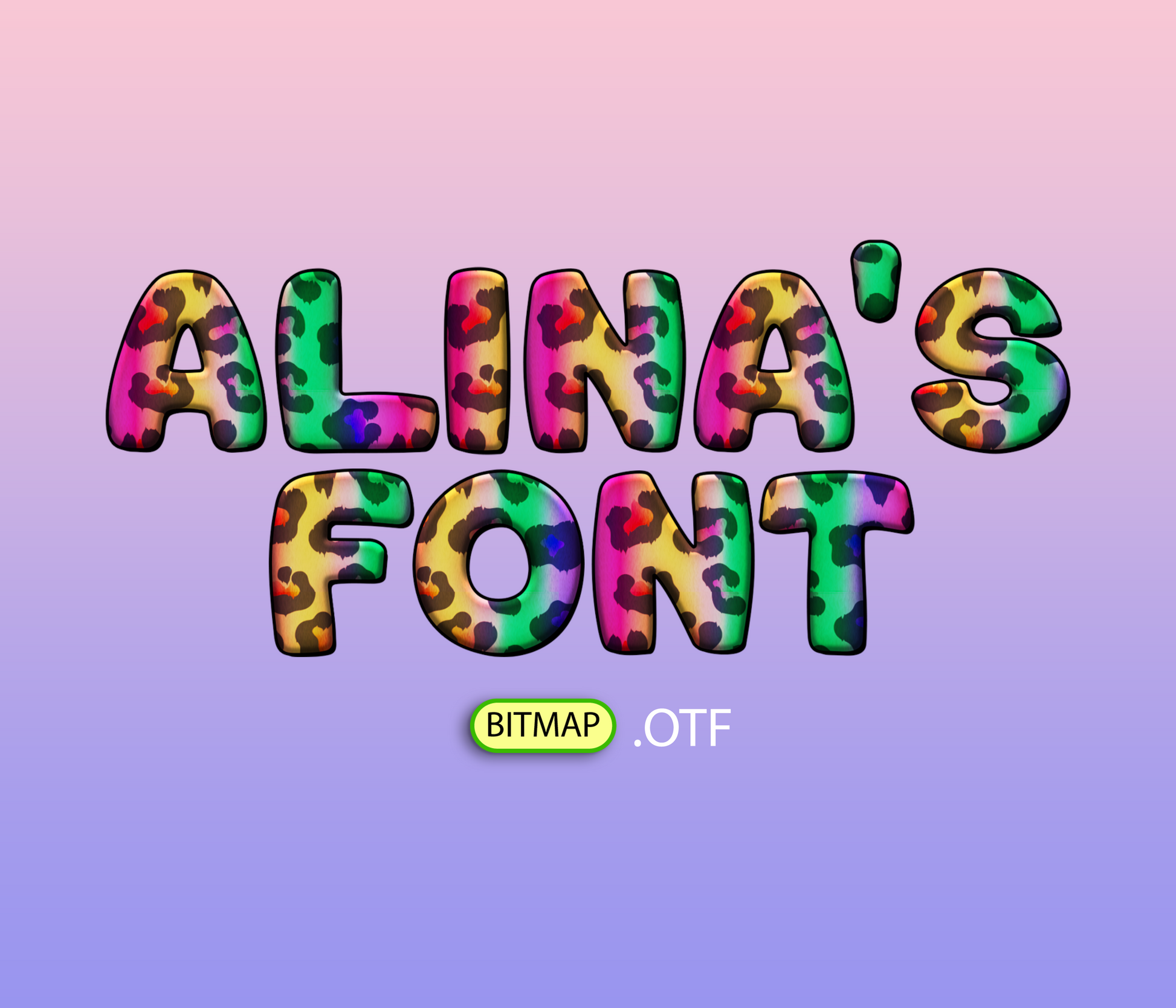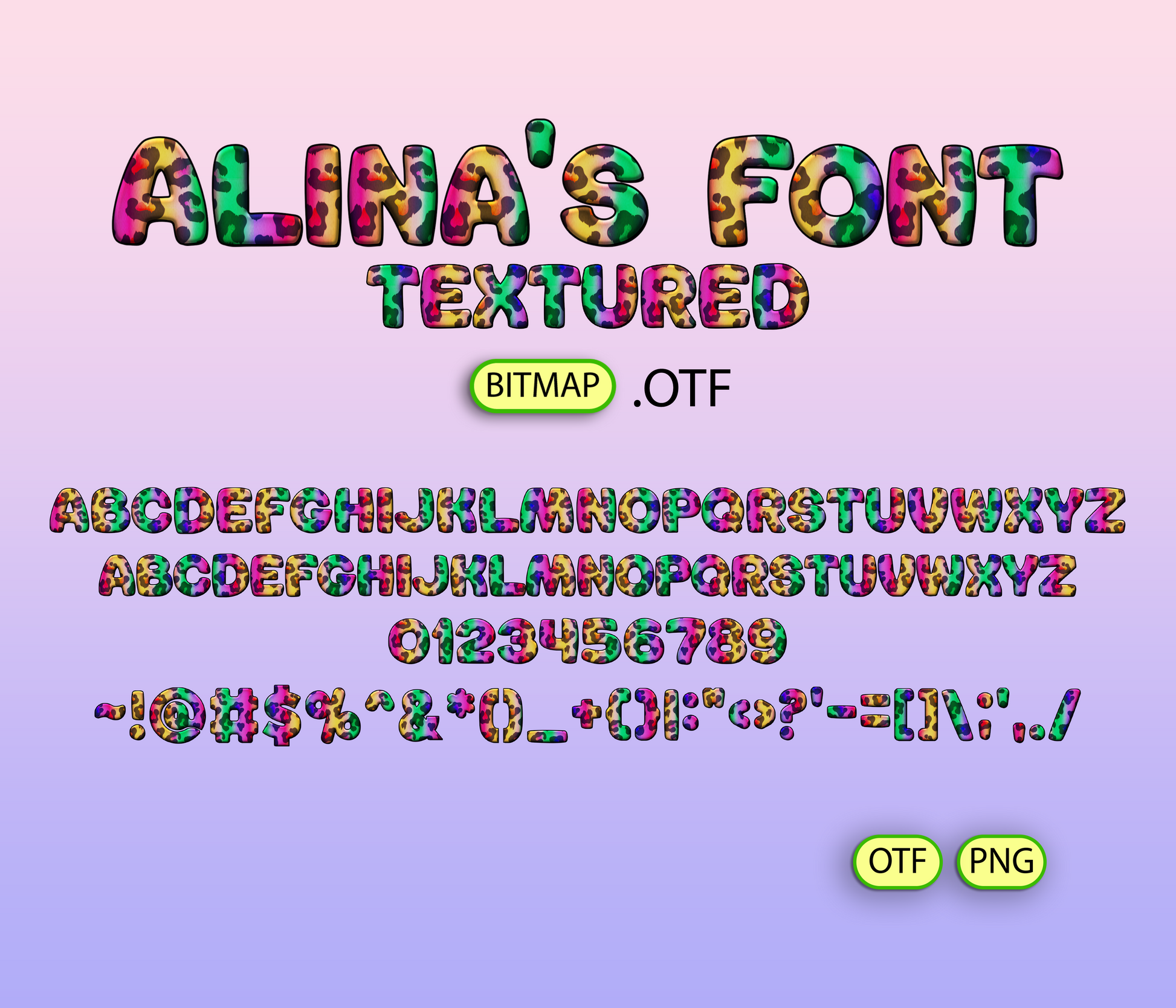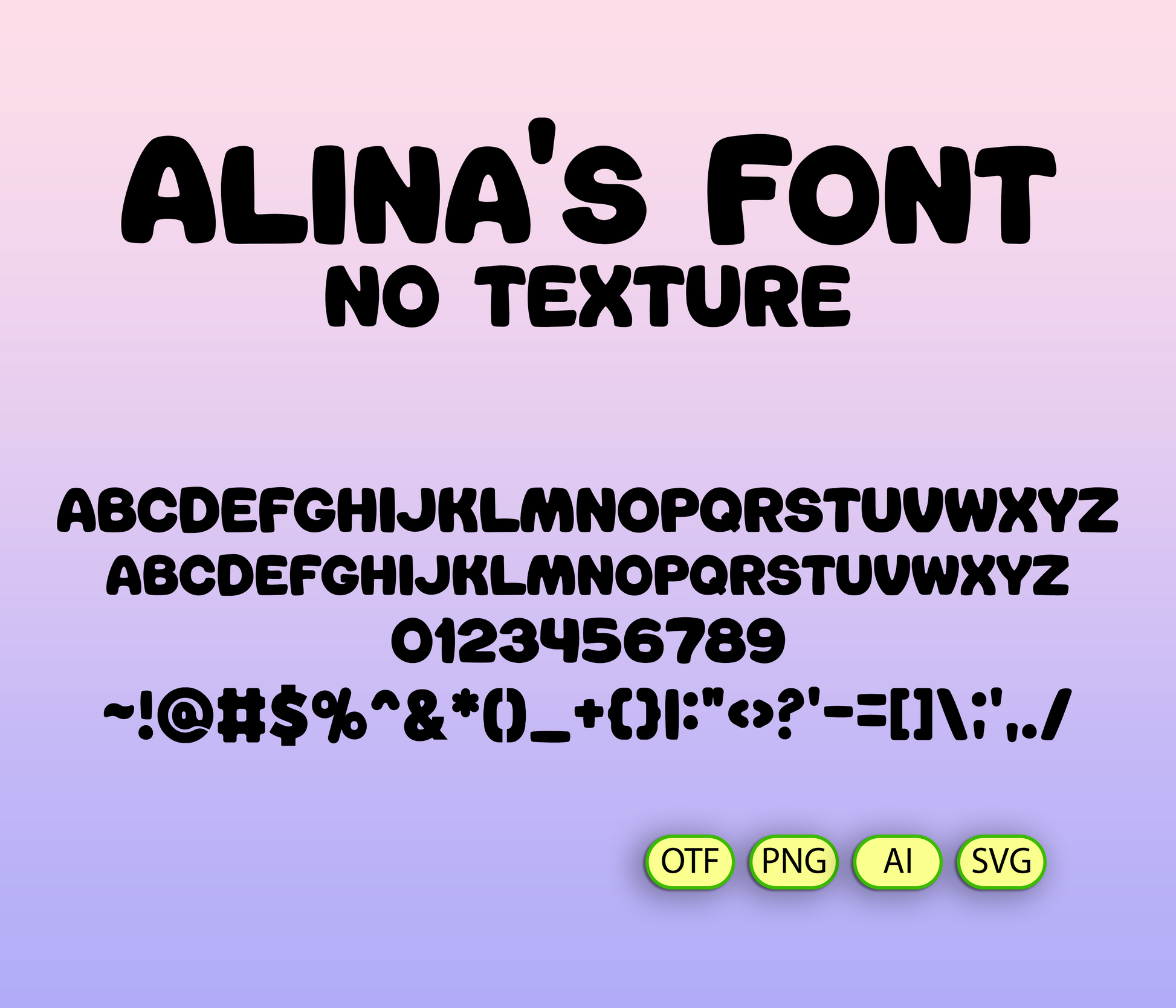
Safari Splash Pattern Font
Step into the wild world of vibrant animal patterns with our Safari Splash font, capturing the essence of exotic wildlife and colorful nature. Perfect for fashion enthusiasts, party planners, event organizers, and designers, this font brings the dynamic, untamed spirit of jungle prints to your projects. Create bold materials, merchandise, or digital content with the energetic patterns of wild animal markings in vivid colors.
Our Safari Splash font features bold, textured lines and pattern-filled characters reflecting the world of exotic animal prints. Ideal for:
- Event Promotions: Create eye-catching invites, posters, and banners for safari parties, zoo events, and themed celebrations that capture the spirit of wild animal patterns
- Merchandise Design: Perfect for t-shirts, posters, and accessories that showcase the vibrant aesthetic of colorful animal prints
- Digital Media: Enhance websites, blogs, and social media with striking headers and graphics that express the energy of wildlife-inspired design
- Fashion Content: Add authentic flair to fashion projects, jungle-themed designs, and creative work inspired by animal print patterns
- Personal Projects: Bring wild excitement to scrapbooking, DIY crafts, and home decor inspired by the world of colorful animal markings
Our font pays tribute to the iconic world of animal print aesthetics, empowering your designs with its bold and vibrant spirit. Whether crafting promotional materials, designing merchandise, or adding a dynamic touch to personal projects, this font communicates the untamed essence of wildlife patterns. Ready to inject exotic animal energy into your creations? This font is your key to exciting, impactful design.